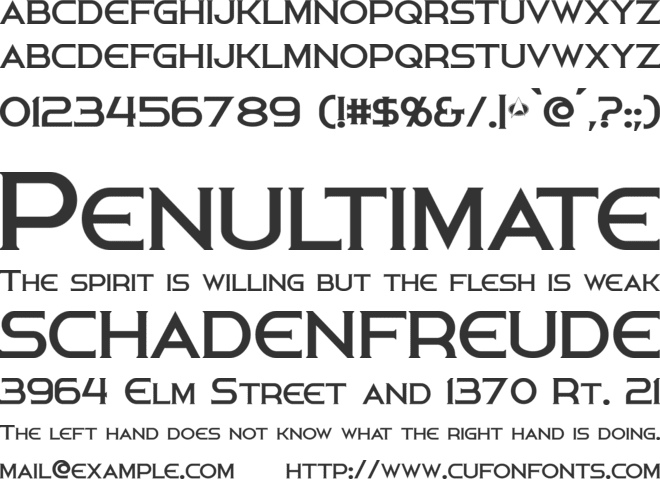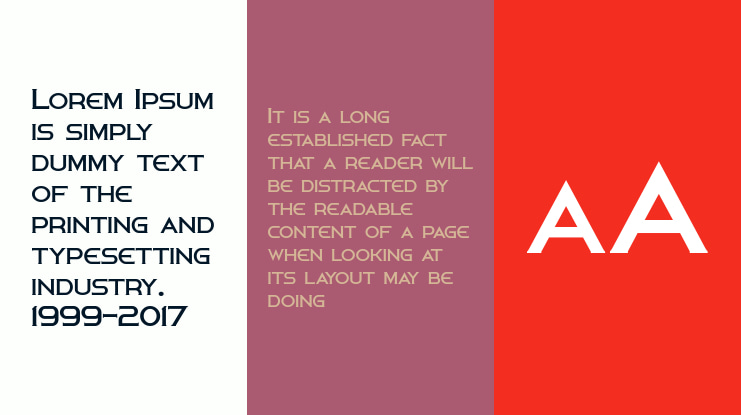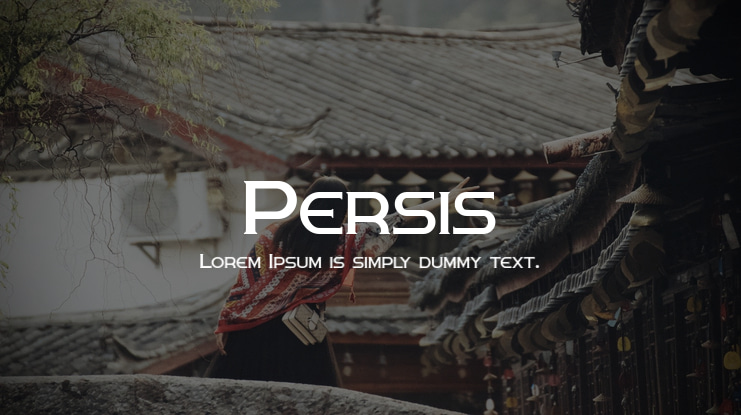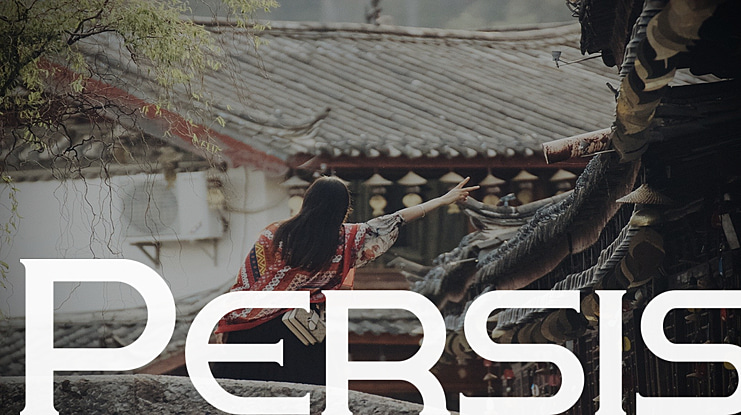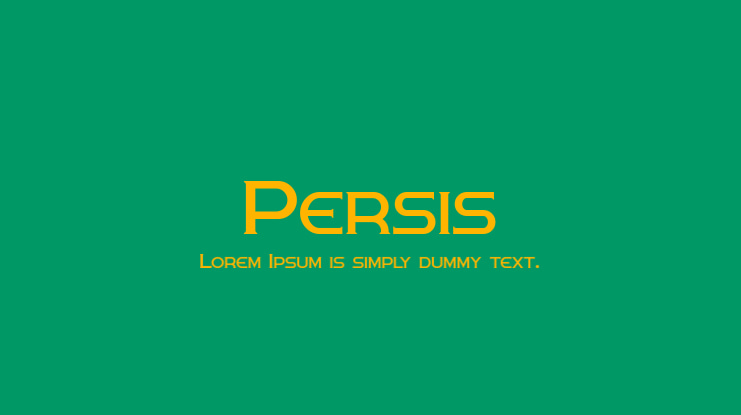
Persis Font Family
Neale Davidson
Persis is a science-fiction font based on the subtitle logos of the Star Trek: The Motion Picture movie... Includes full alphabet, numerals, extended punctuation, euro. Includes regular, bold, italic, and bold-italic weights.